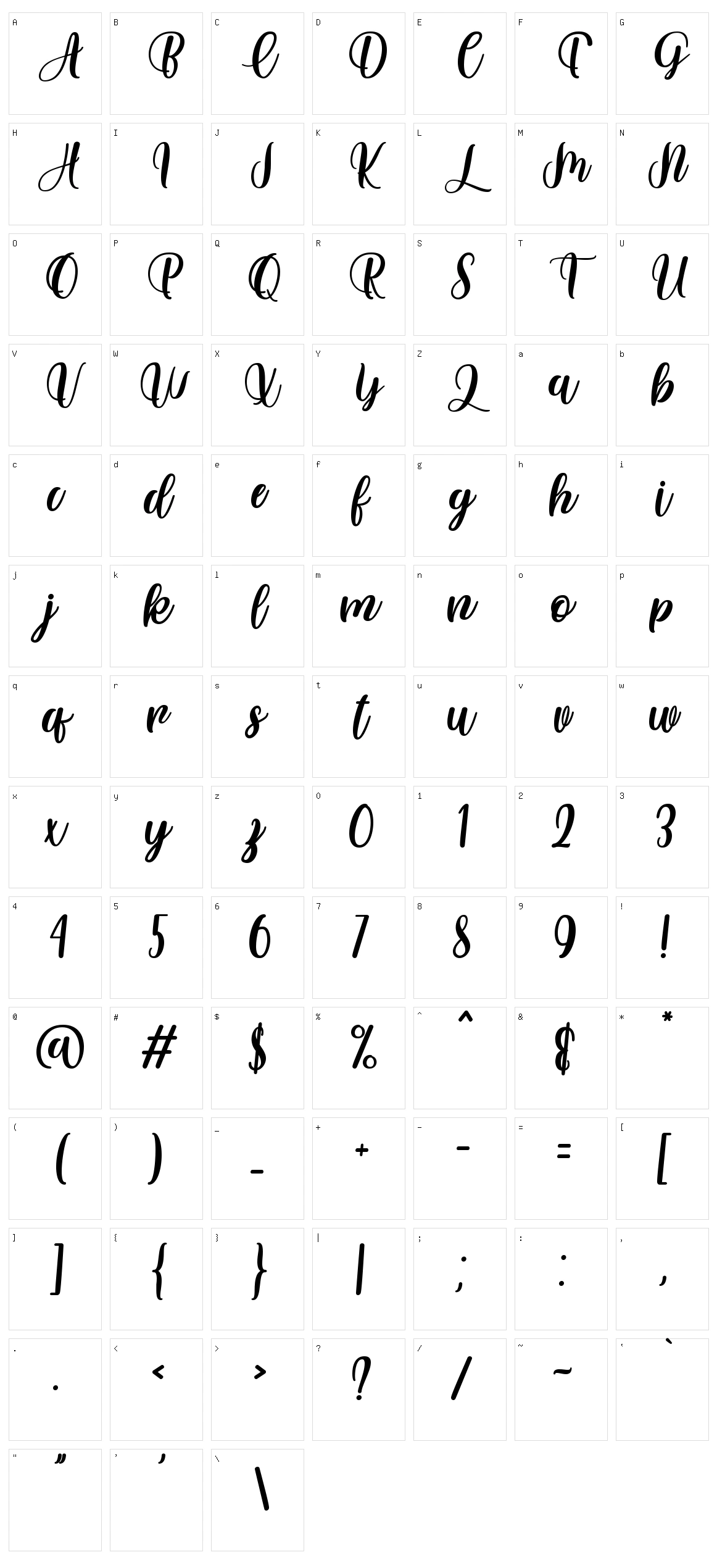
The free font Tails Mermaid is carefully designed by FallenGraphic Studio, showcasing a thoughtful balance of creativity and usability and falls under the Script font style. When you download the ZIP file, it contains only 40.11 KB of font files, making it lightweight and quick to download. Please review the license details below to understand permitted usage and distribution rights. If license information is not available, we recommend using this font for personal projects only or contacting the author directly for commercial usage permissions.